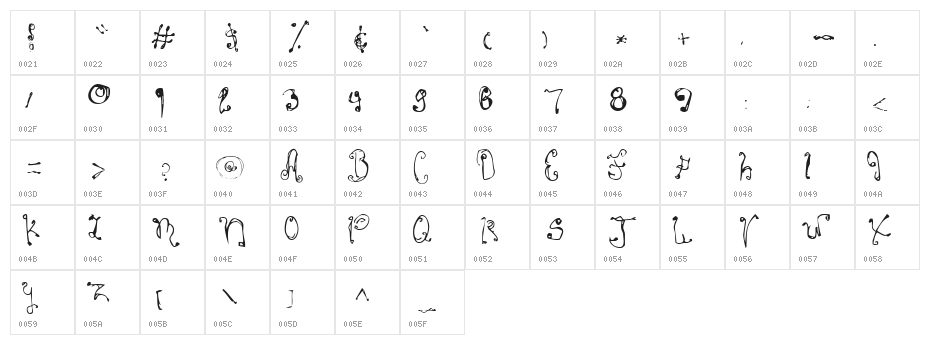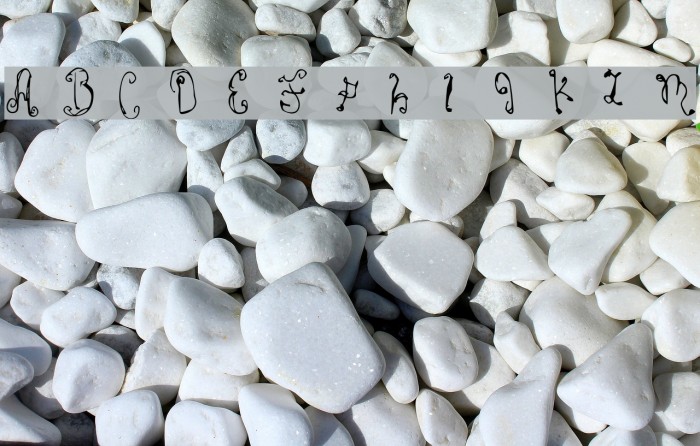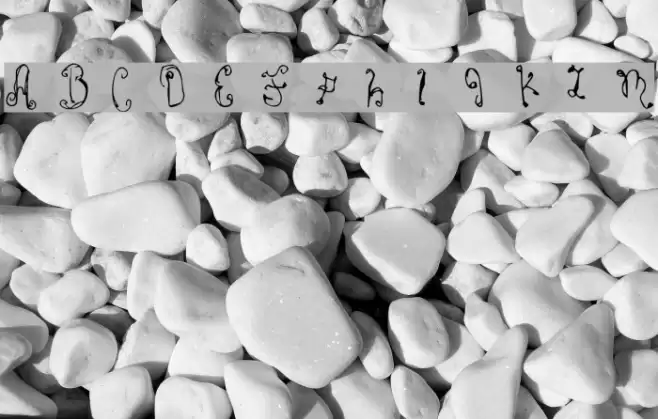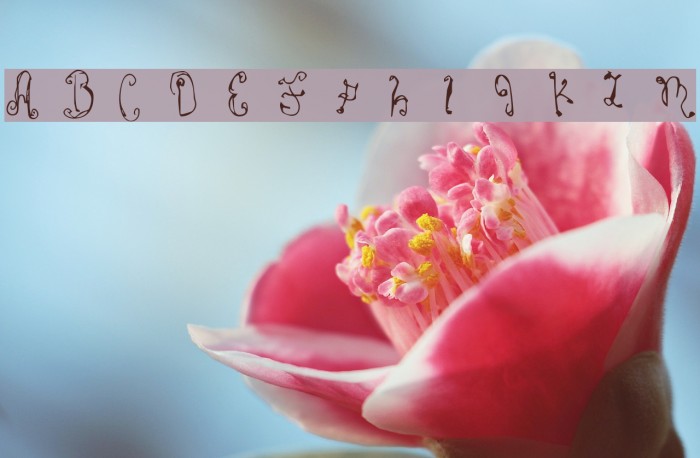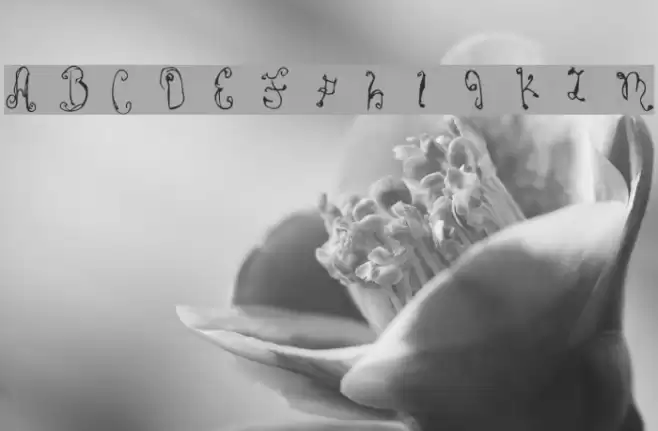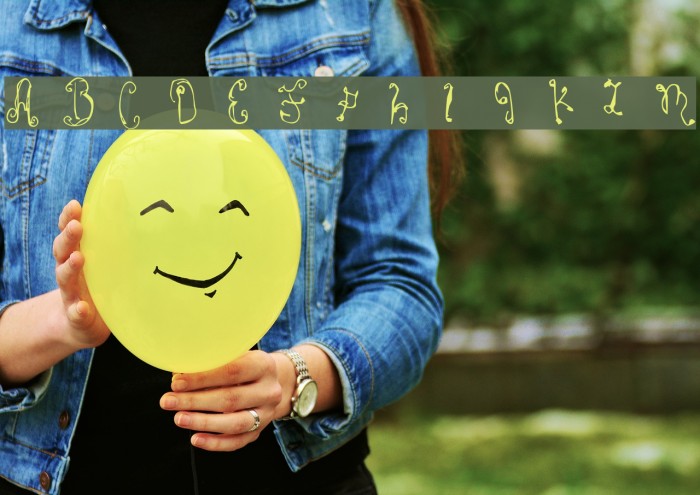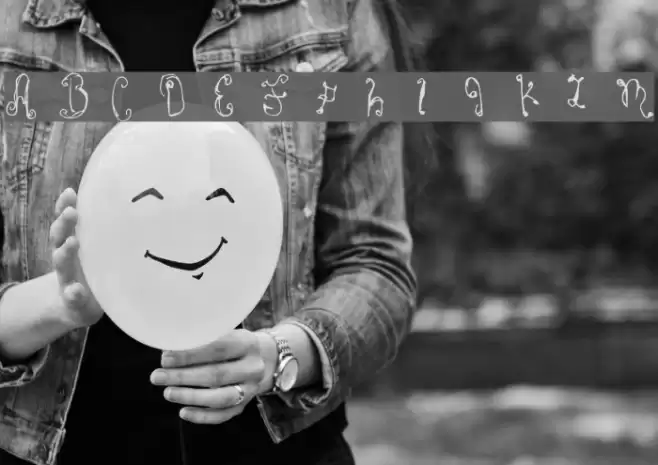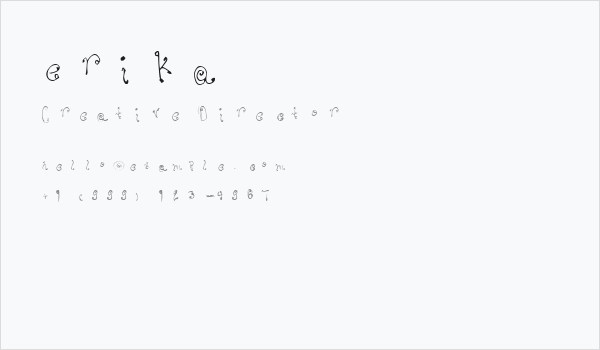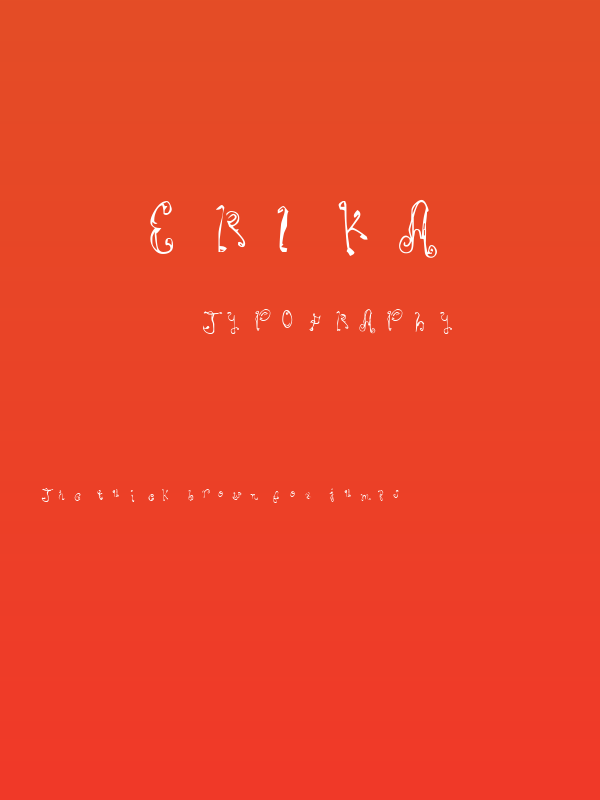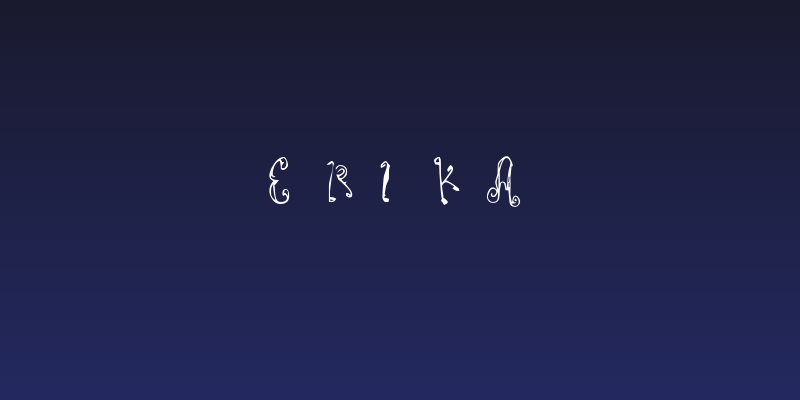
eriKa Font
eriKa Description
This font is a whimsical and decorative typeface characterized by its playful and intricate design. Each character is adorned with unique curls and swirls, giving it a hand-drawn, artistic feel. The uppercase letters are particularly elaborate, with additional flourishes that make them stand out. The lowercase letters maintain a consistent style, though they are slightly more subdued in their embellishments. Numbers and special characters follow the same decorative theme, ensuring a cohesive look across all elements. The overall appearance is both charming and eccentric, making it suitable for creative and artistic projects.
| Proposed Projects | Ideal for invitations, greeting cards, artistic posters, and creative branding. |